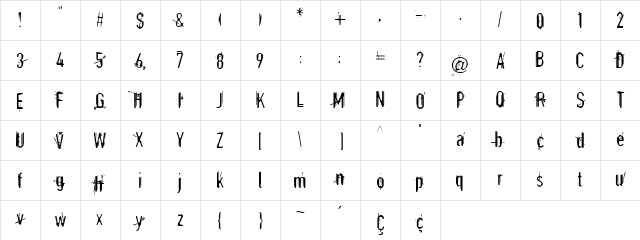
Astonished (r)ecife Free Font
Astonished (r)ecife
Style: (r)ecife
Astonished Family
Astonished (r)ecife
Design Context for Astonished
Astonished is a composed and adaptable typeface that performs quietly and consistently across a wide range of design contexts.